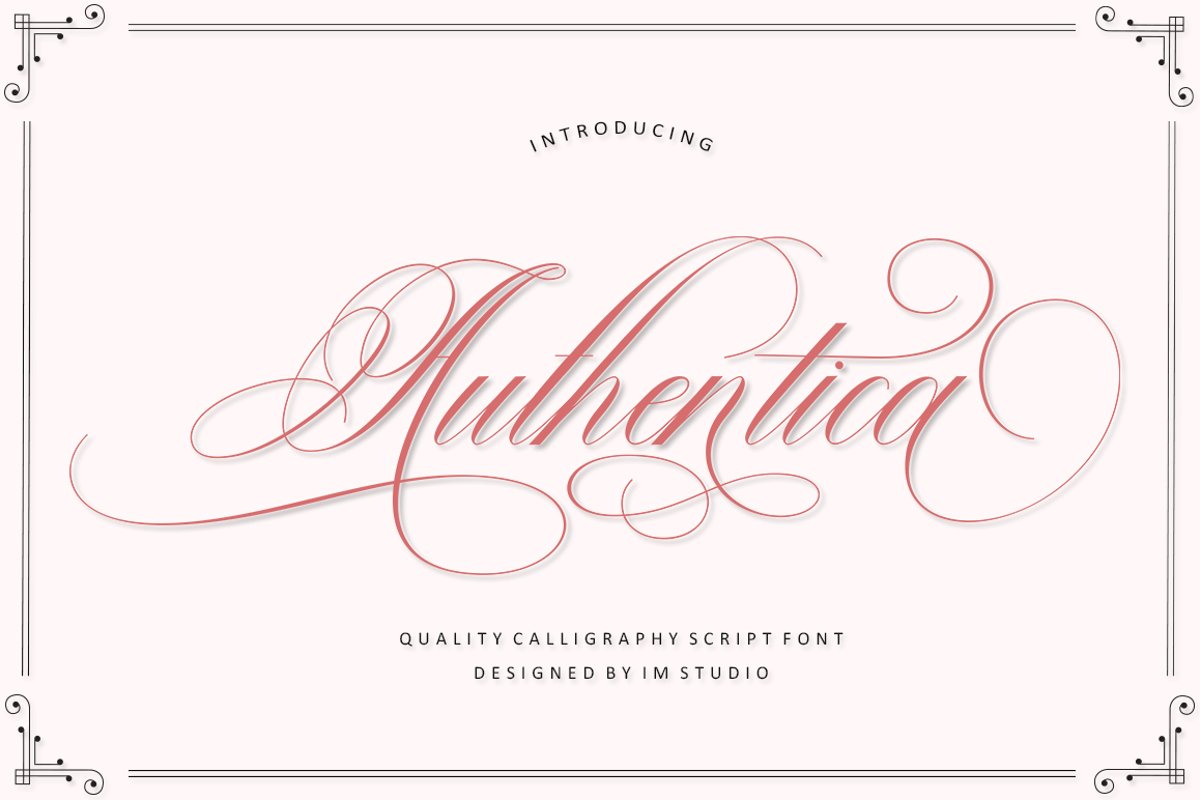
Authentica
The latest style Authentica script with modern types of calligraphy
fonts, I hope you are interested in this font, if you want to use it for your work
This font can be used easily and simply because there are many features in it
it contains the full set of lowercase and uppercase letters, various kinds
punctuation marks, numbers, and multilingual support.
Authentica is appropriate use for market designs developed at this time, this font has a model
Trendy, natural, neat and also soft, with this font.
You can utilize a chance at every moment from one extraordinary way to highlight the celebration
from your best party, because this font will be a supporter for the goal
such as wedding invitations, parties, graduations, birthdays, meetings, etc.